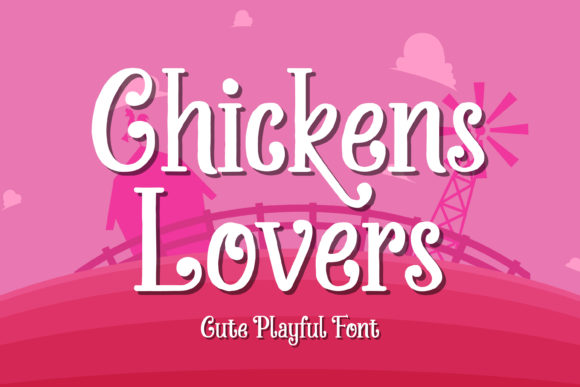
Chickens Lovers Font: The Ultimate Guide to a Cute and Playful Display Font
Are you a fan of chickens? Do you love designing modern, unique, and fun projects? Look no further than the Chickens Lovers font! This adorable display font is perfect for adding a touch of whimsy to your logos, branding, social media, and crafty DIY projects. In this article, we’ll dive into the world of Chickens Lovers font and explore its features, benefits, and uses.
What is Chickens Lovers Font?
Chickens Lovers is a cute and playful display font designed to make your designs stand out. Its modern and unique style is perfect for creating eye-catching logos, branding materials, and social media graphics. This font is also ideal for crafty DIY projects, such as handmade cards, invitations, and signs.
The font features a distinctive and charming design, with each letter and number carefully crafted to resemble a chicken’s playful and quirky personality. The font is highly legible, making it perfect for use in a variety of design projects.
Benefits of Using Chickens Lovers Font
So, why choose Chickens Lovers font for your design projects? Here are just a few benefits of using this amazing font:
- Unique and Modern Style: Chickens Lovers font has a distinctive and modern style that will set your designs apart from the crowd.
- Highly Legible: The font is highly legible, making it perfect for use in a variety of design projects, from logos and branding to social media graphics and DIY projects.
- Playful and Whimsical: The font’s playful and whimsical design is perfect for adding a touch of fun and personality to your designs.
Uses of Chickens Lovers Font
So, what can you use Chickens Lovers font for? The possibilities are endless! Here are just a few ideas to get you started:
- Logos and Branding: Use Chickens Lovers font to create unique and memorable logos and branding materials for your business or personal brand.
- Social Media Graphics: Add a touch of personality to your social media graphics with Chickens Lovers font.
- Crafty DIY Projects: Use Chickens Lovers font to add a personal touch to your handmade cards, invitations, and signs.
- Party Decorations: Use Chickens Lovers font to create fun and playful party decorations, such as banners and signs.
Design Tips for Using Chickens Lovers Font
Here are a few design tips to keep in mind when using Chickens Lovers font:
- Keep it Simple: Don’t overcomplicate your design. Keep it simple and clean to let the font shine.
- Experiment with Colors: Chickens Lovers font looks great in a variety of colors. Experiment with different colors to find the perfect combination for your design.
- Use it with Images: Consider using Chickens Lovers font with images or illustrations to add an extra layer of interest to your design.
Chickens Lovers Font Details
Here are the details you need to know about Chickens Lovers font:
- Font Type: Display Font
- Font Style: Cute, Playful, Modern
In conclusion, Chickens Lovers font is a unique and playful display font that’s perfect for adding a touch of whimsy to your designs. With its modern and unique style, high legibility, and ease of use, this font is perfect for designers of all skill levels. Whether you’re creating logos, branding materials, social media graphics, or crafty DIY projects, Chickens Lovers font is the perfect choice.